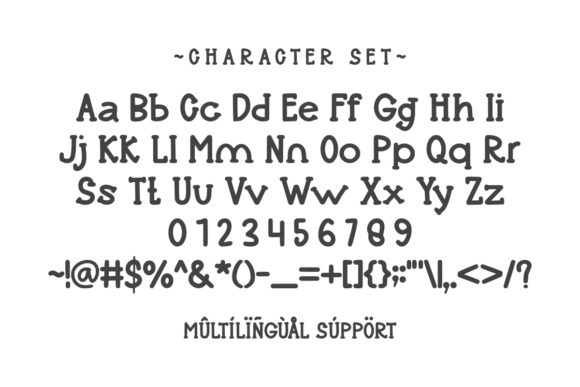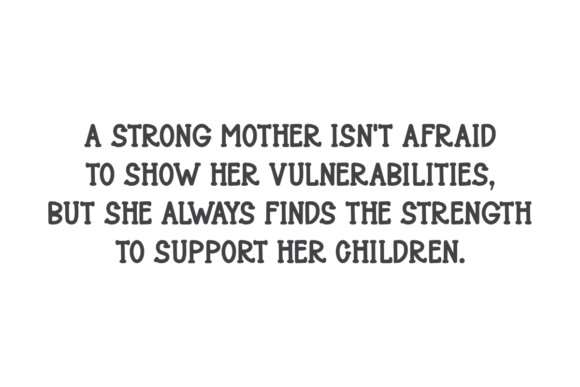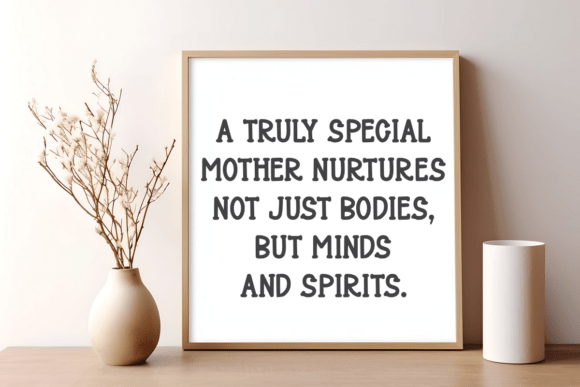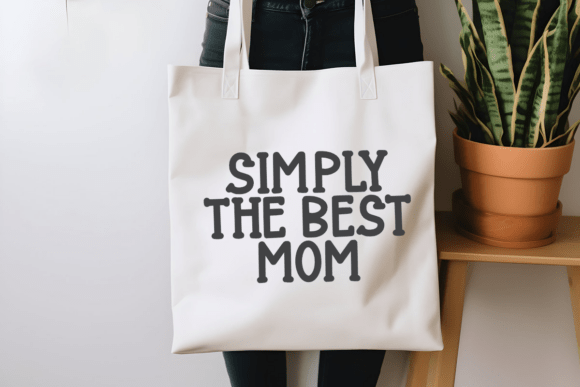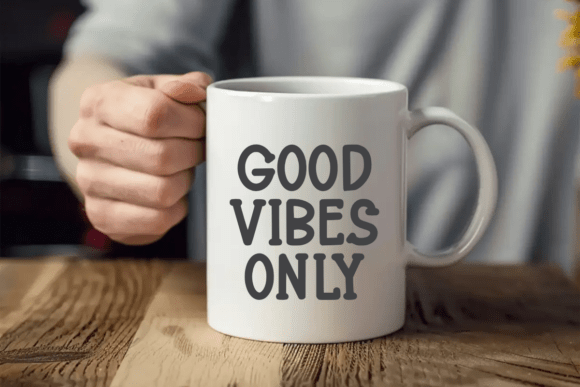
Introduction to Perfect Mother Font
Perfect Mother is a unique handwritten slab serif font with a balance of boldness and softness.
It’s playful yet structured, making it great for titles, quote designs, kids merchandise, and heartwarming messages .
Key Features of Perfect Mother Font
Why Choose Perfect Mother Font?